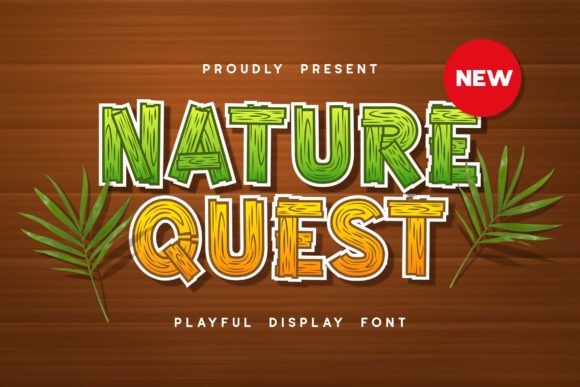
Dive into the realm of musical harmony with Nature Quest Font, the enchanting display font crafted by Imoodev. Unleash your creativity and let the melody of this font dance across your designs, captivating your audience with its vibrant and playful essence.
Nature Quest Font is not just a collection of glyphs; it's an invitation to embark on an auditory escapade. Its whimsical strokes and organic flow evoke the symphony of nature, transforming your words into a visual masterpiece. Whether you're designing posters, branding materials, or social media graphics, this font will elevate your message with its distinctive charm.
Imagine the allure of a musical festival poster adorned with the Nature Quest Font. Its energetic curves and playful ligatures will draw the eye like a magnet, inviting passersby to immerse themselves in the rhythm of your event. Or envision the impact of a social media post, where the font's dynamic characters dance across the screen, capturing the attention of your followers and leaving them humming the tune of your message.
With Nature Quest Font, you'll discover a symphony of possibilities. Its versatility extends beyond music-related designs; it harmonizes beautifully with nature-inspired themes, whimsical illustrations, and even elegant invitations. Let the font's organic flow guide your creativity, and witness how it transforms ordinary words into an enchanting visual symphony.
So, embark on this musical journey with Nature Quest Font, and let your designs sing with joy. Its captivating strokes will leave your audience spellbound, ensuring that your message resonates with them long after they've turned the page.